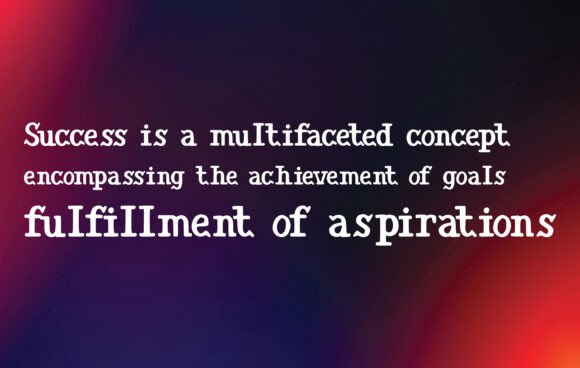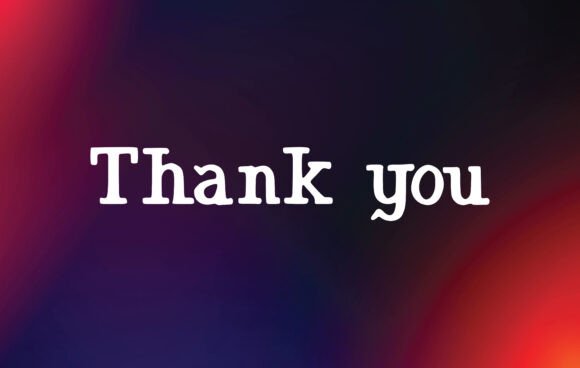
The Genevieve Font: Elevate Your Designs with Elegance
I’ll never forget the time I was working on a logo design project for a luxury brand. I had a clear vision of what I wanted to create, but somehow, the font just wasn’t cooperating. It was either too bland, too over-the-top, or just plain mismatched. That’s when I stumbled upon the Genevieve font, and it was love at first sight! ✨
Genevieve is a lovely and beautiful font that has the potential to take your creative ideas to the highest level. It’s the best choice for creating eye-catching logos, branding, and quotes that exude elegance and sophistication.
- ✨ Elegant and refined design that’s perfect for luxury brands
- 🎨 Versatile and adaptable to various design styles and industries
- 💻 Works beautifully on both digital and print platforms
While Genevieve is an amazing font, there are a few things to keep in mind: 🤔
- ⚠️ May not be the best choice for body text or long paragraphs, as it’s optimized for headlines and titles
- ⚠️ Some users may find the font a bit too ornate or delicate for certain design projects
The Designer Inspiration Behind Genevieve
Genevieve was designed with the goal of creating a font that exudes elegance and sophistication. The designer aimed to craft a font that would be perfect for luxury brands, high-end designs, and creative projects. With its refined and beautiful design, Genevieve is sure to elevate your designs to the next level.
Q: What type of projects is Genevieve best suited for?
A: Genevieve is perfect for creating eye-catching logos, branding, and quotes that require an elegant and sophisticated touch.
Q: Can I use Genevieve for body text or long paragraphs?
A: While Genevieve is a beautiful font, it’s optimized for headlines and titles. It’s not recommended for body text or long paragraphs.
Q: Is Genevieve compatible with both digital and print platforms?
A: Yes, Genevieve works beautifully on both digital and print platforms, making it a versatile font for various design projects.